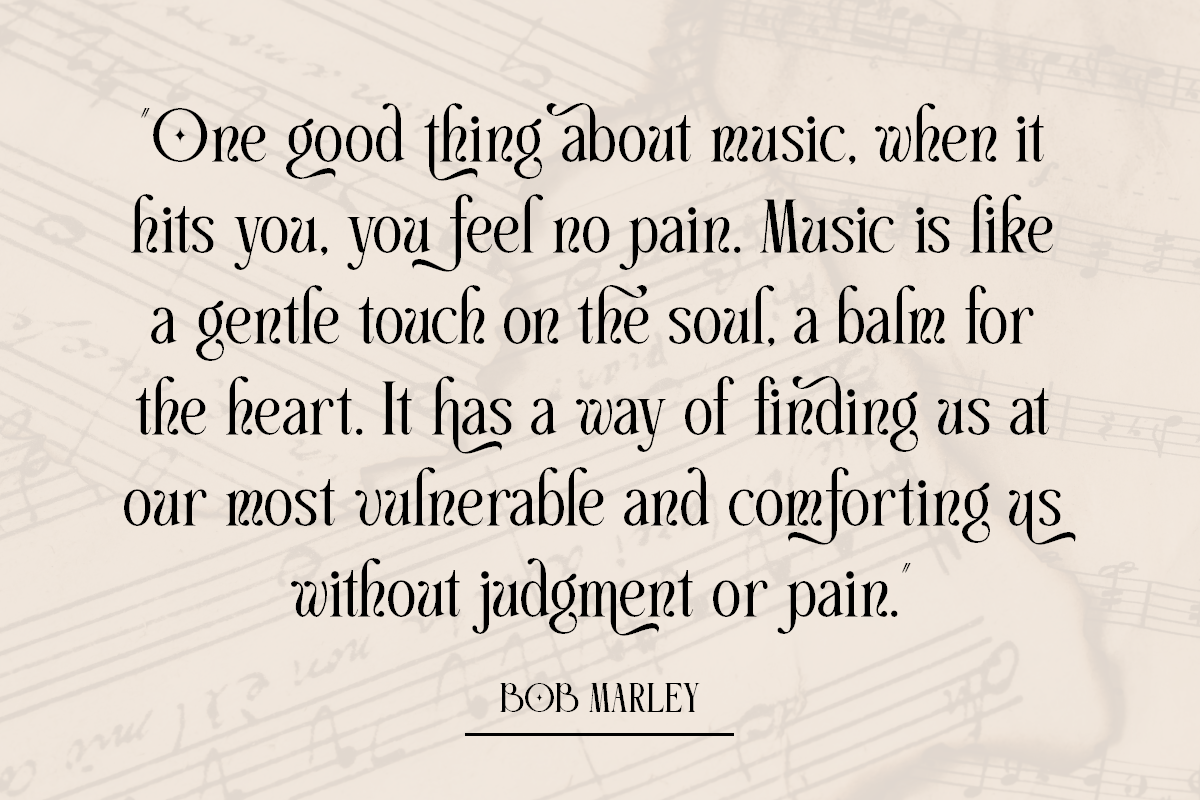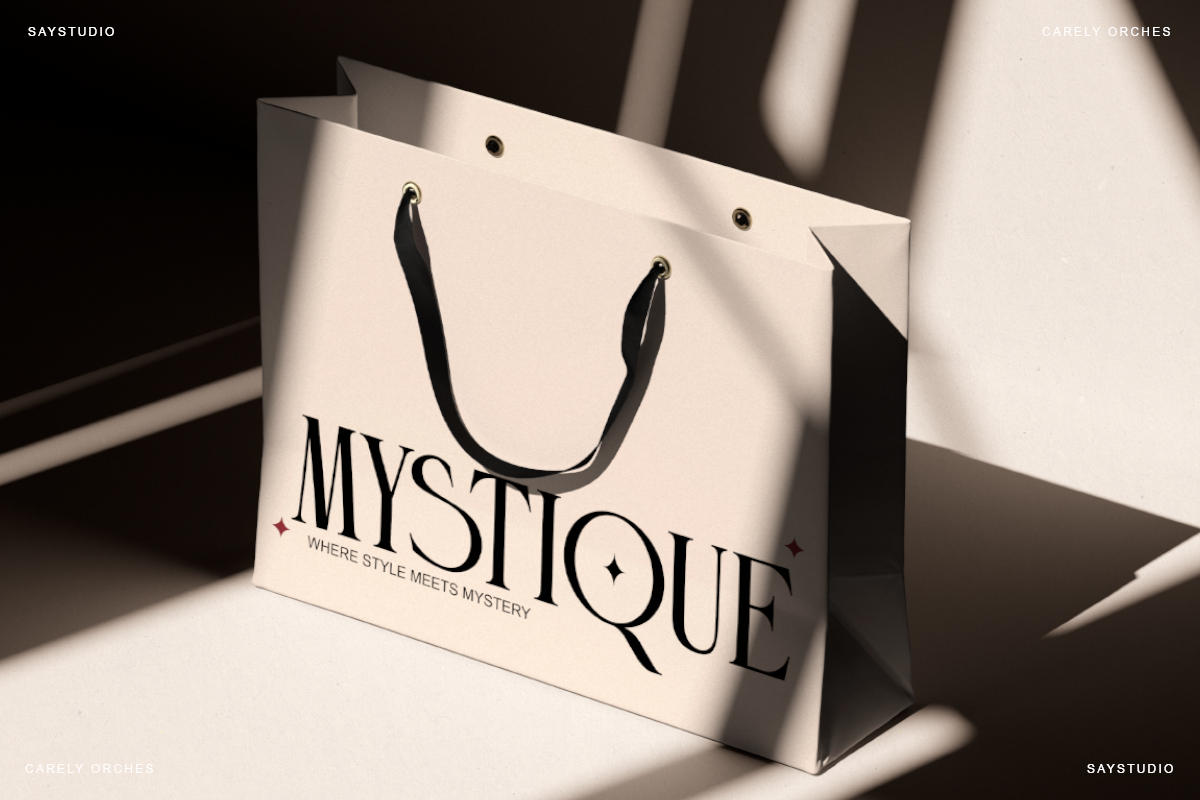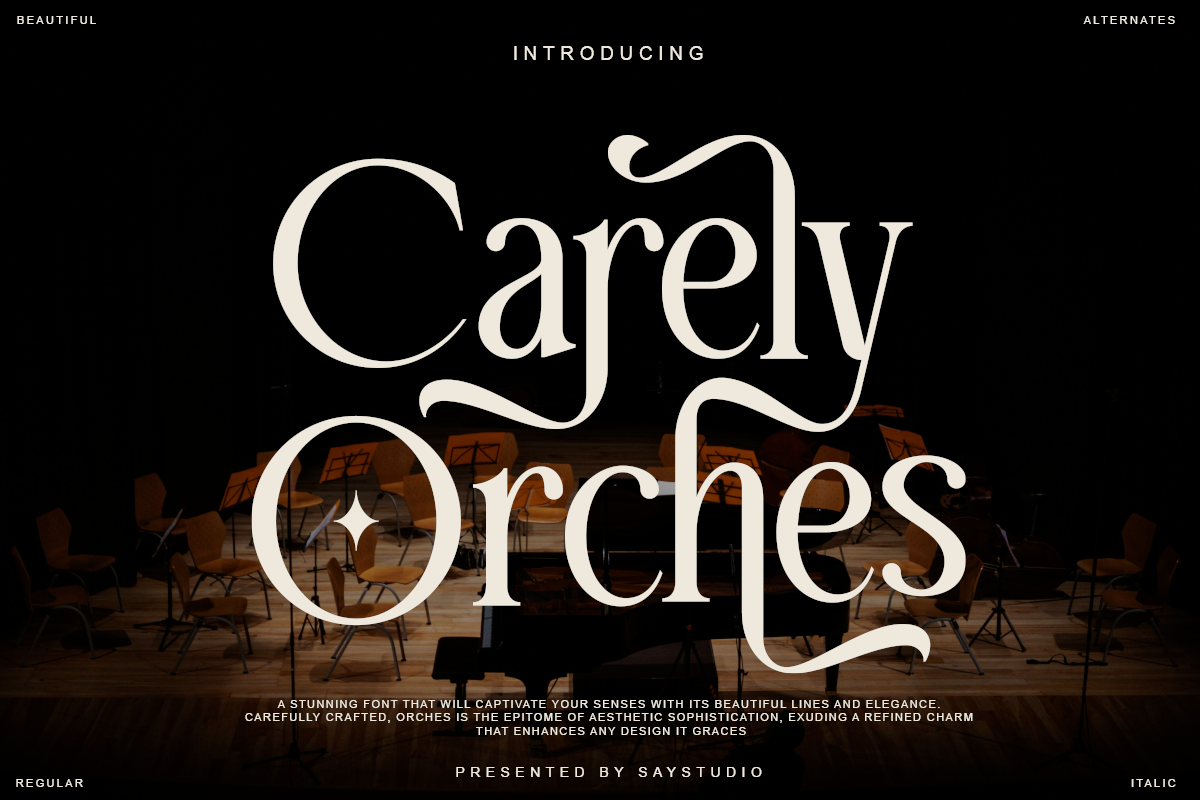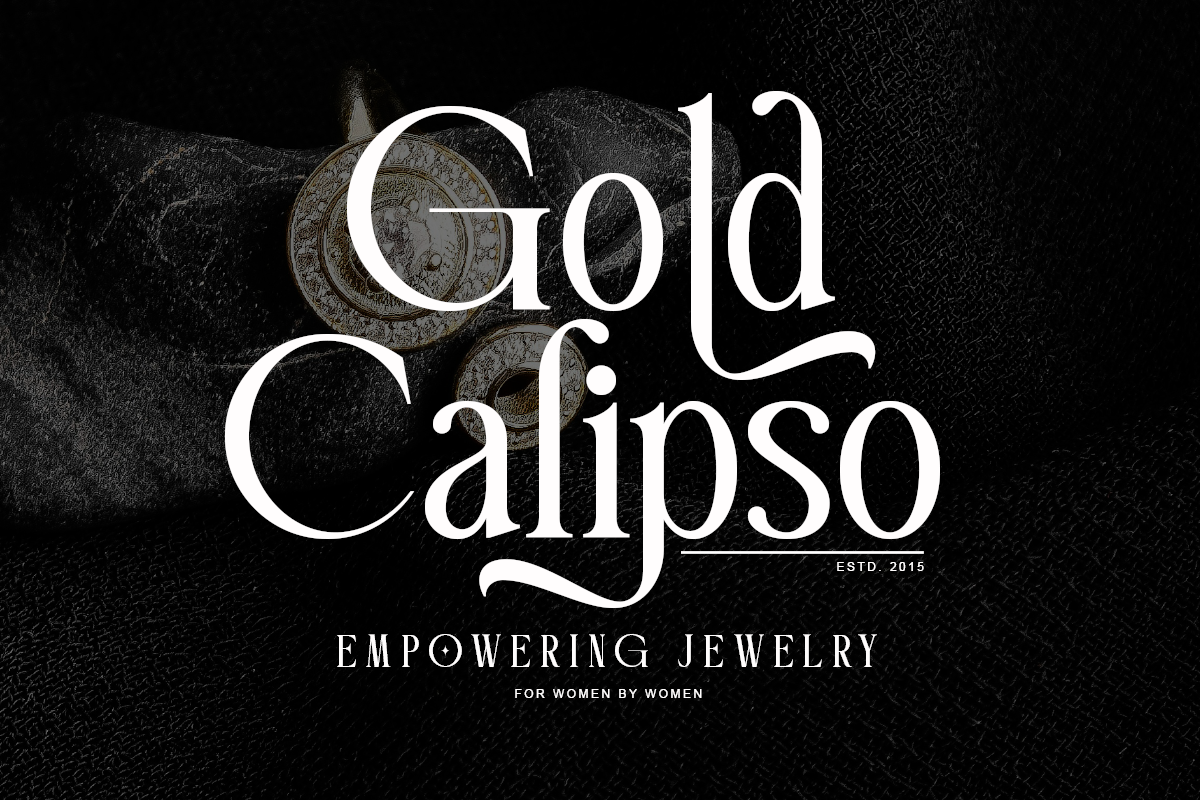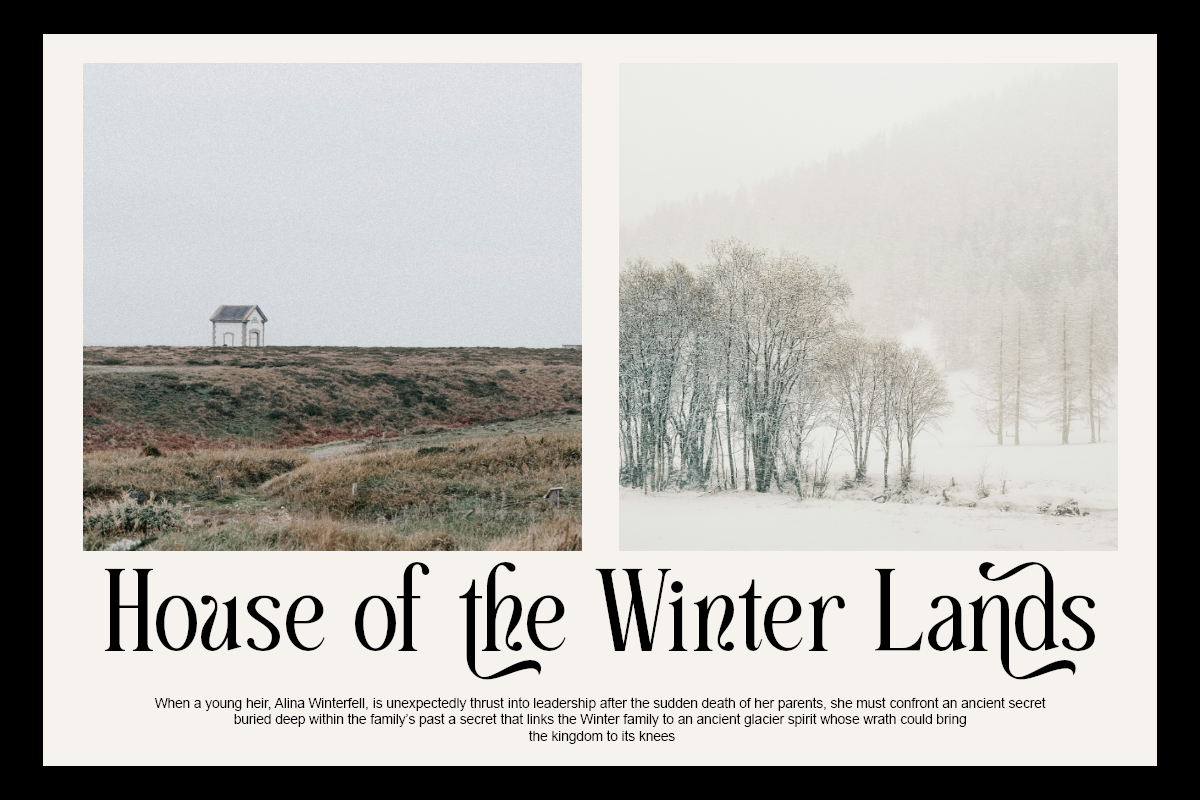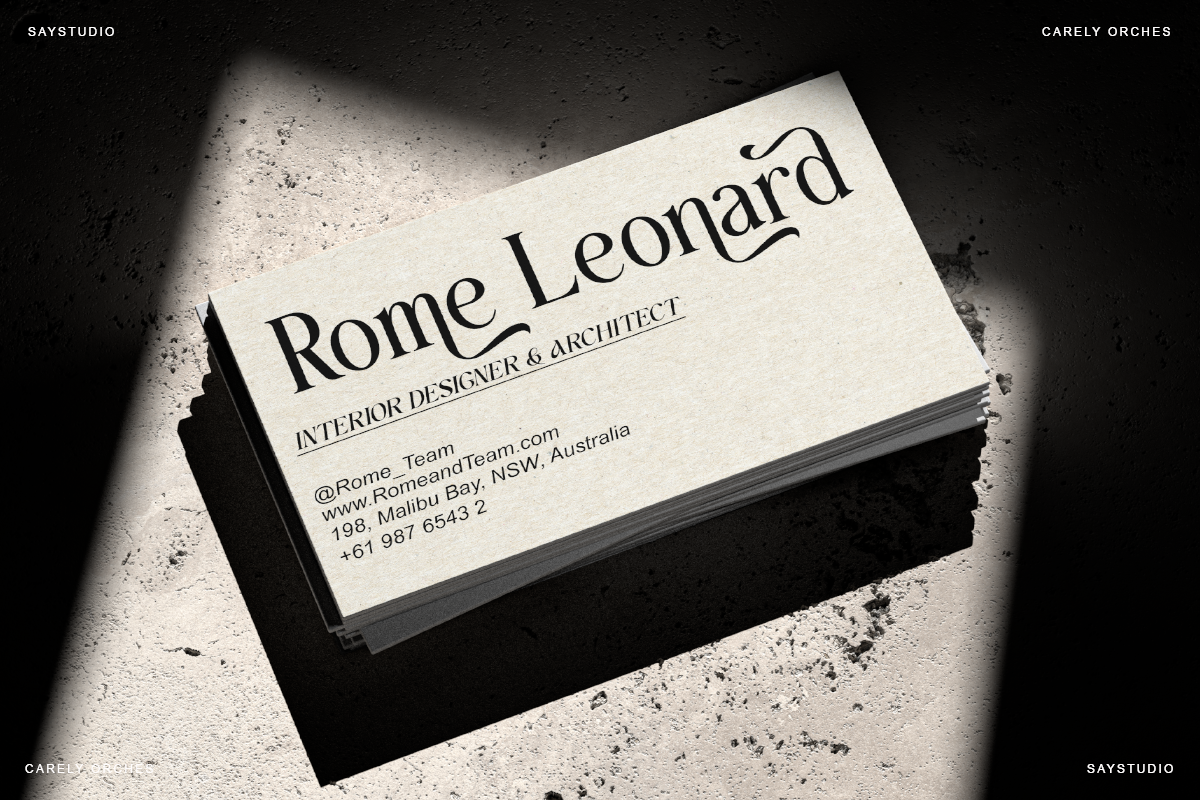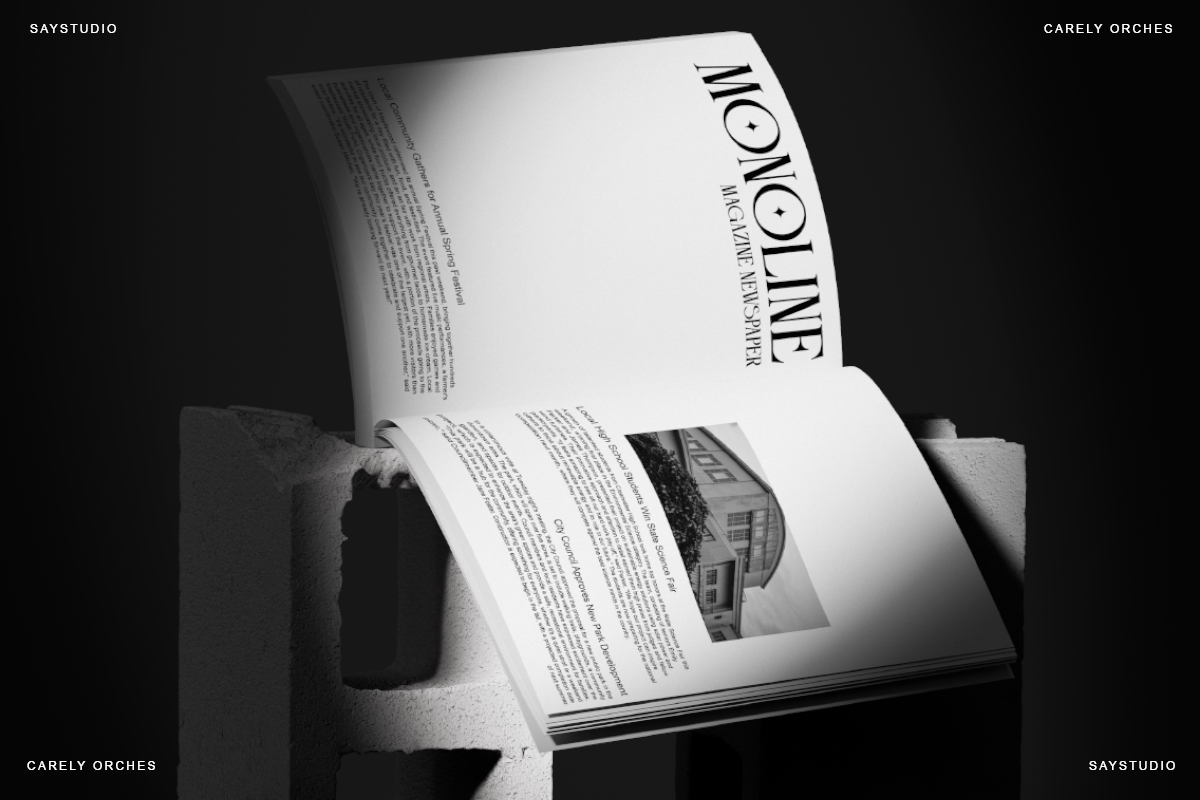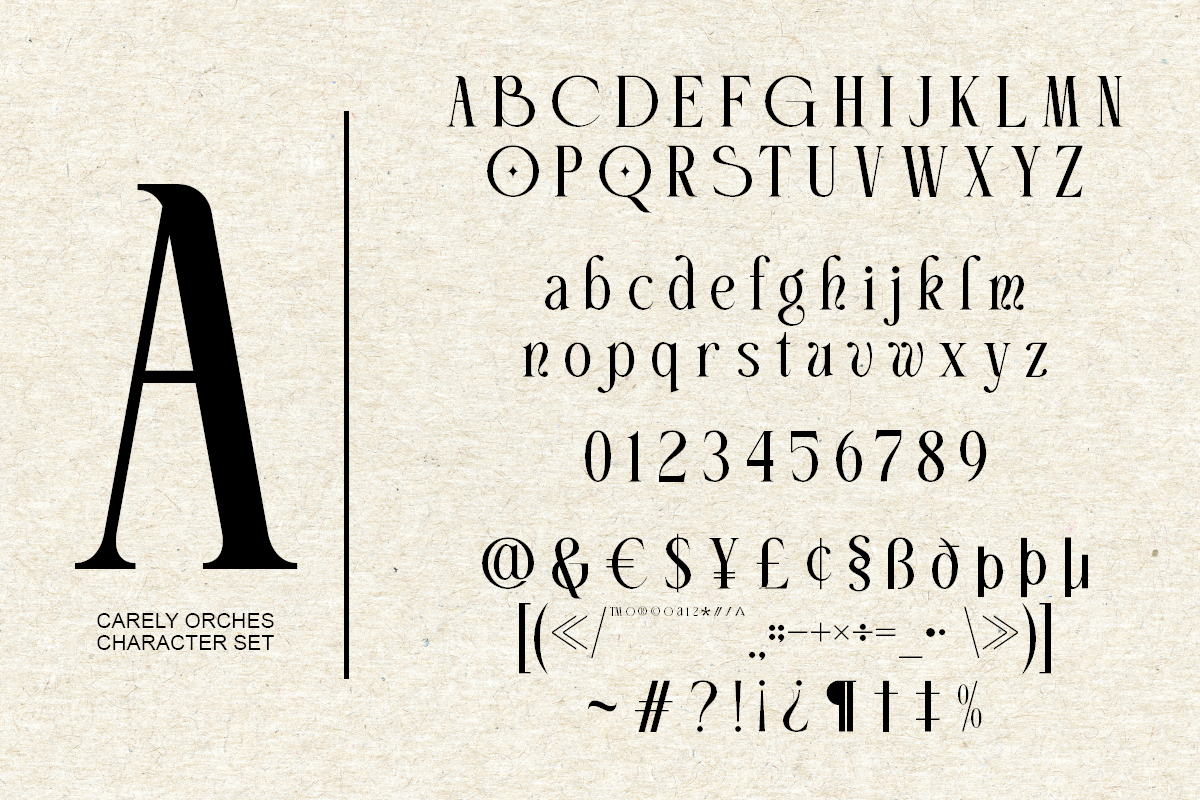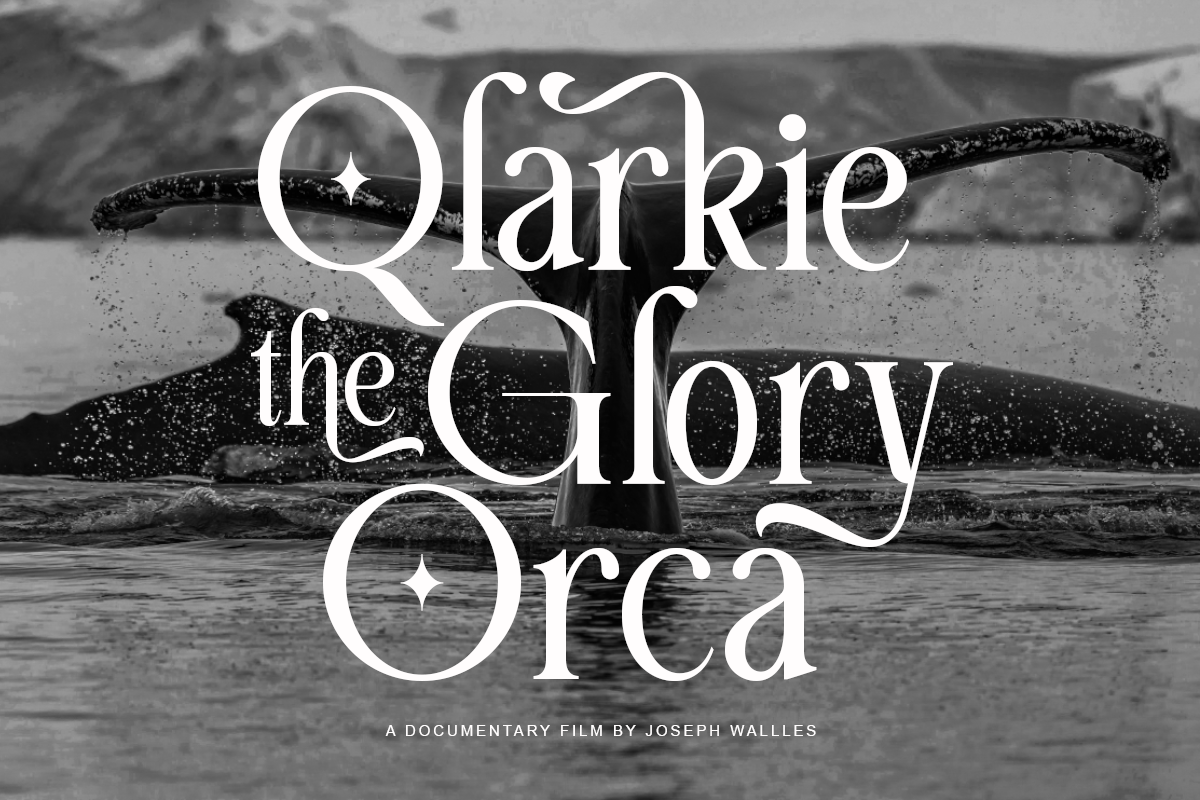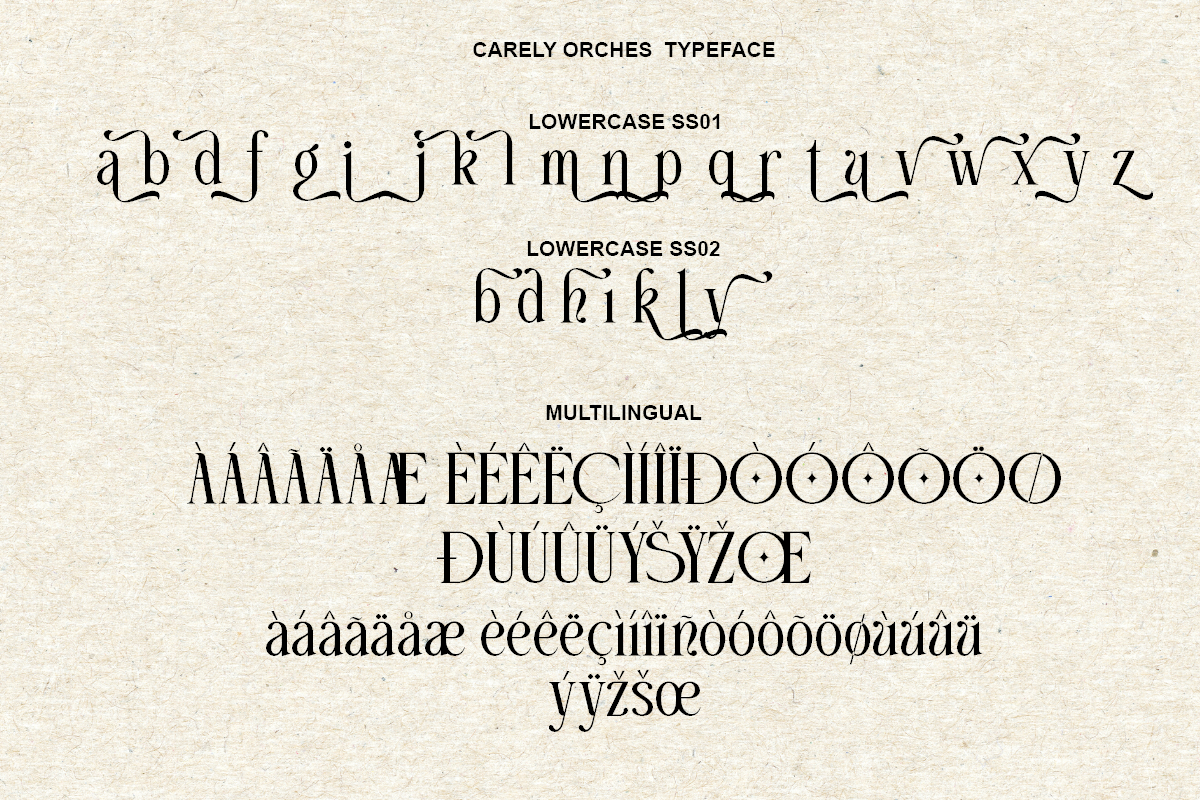
Carely Orches - Classy Serif Font
Carely Orhes is a classy display serif with a lot of style. Using unique character alternates to show its class. Carely Orches comes with an italic style to match. Perfect for fashion work, magazines, or just classy logo designs. Open up your glyphs panel and explore all the characters!